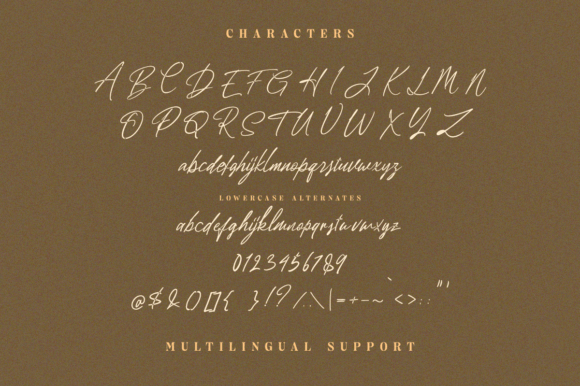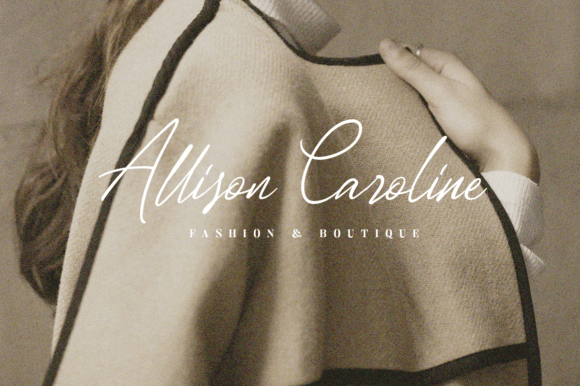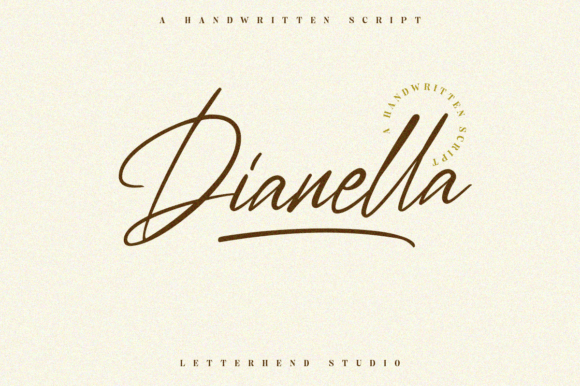
Dianella Typeface
Designer: letterhend
Dianella Typeface, is a magical script font carefully created with a touch of elegance. Whether you’re looking for fonts for Instagram or calligraphy scripts for DIY projects, this font will turn any creative idea into a true piece of art!